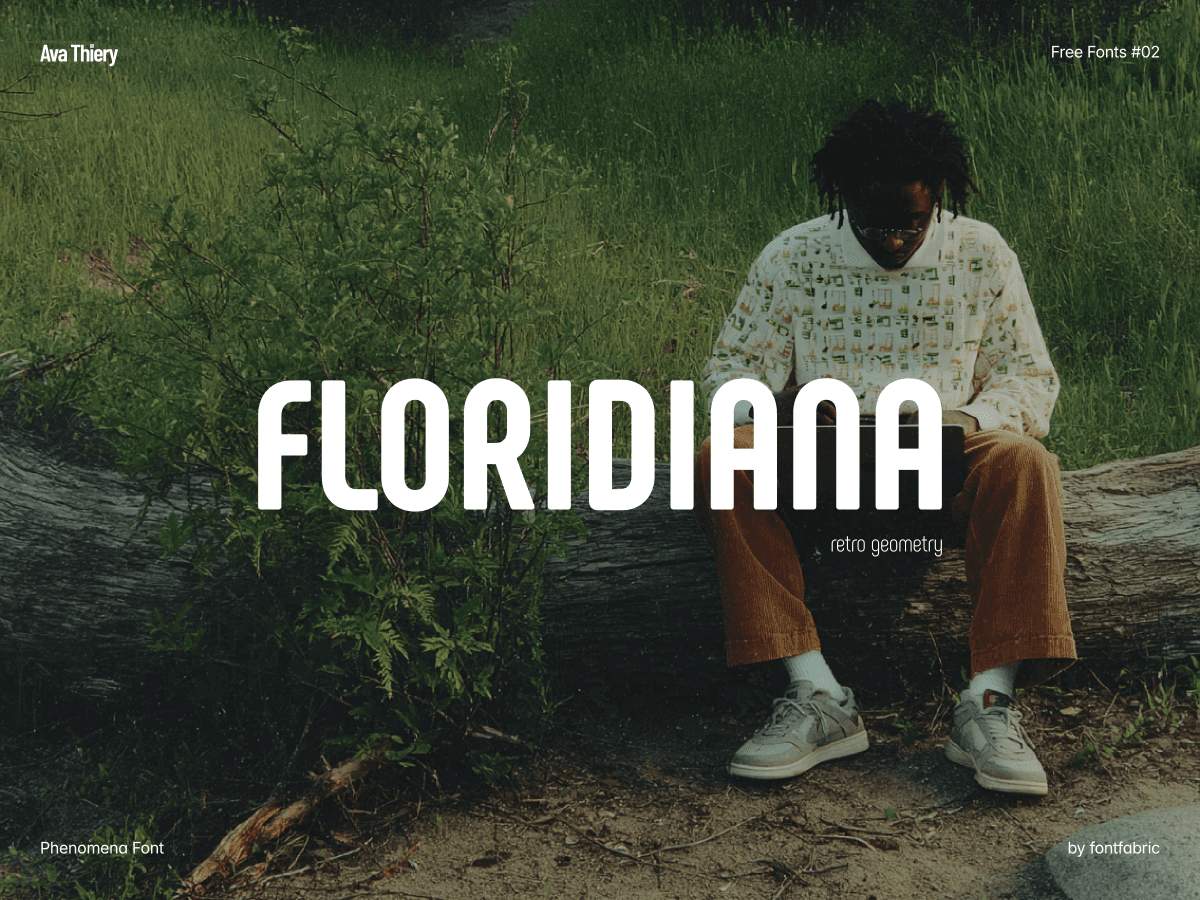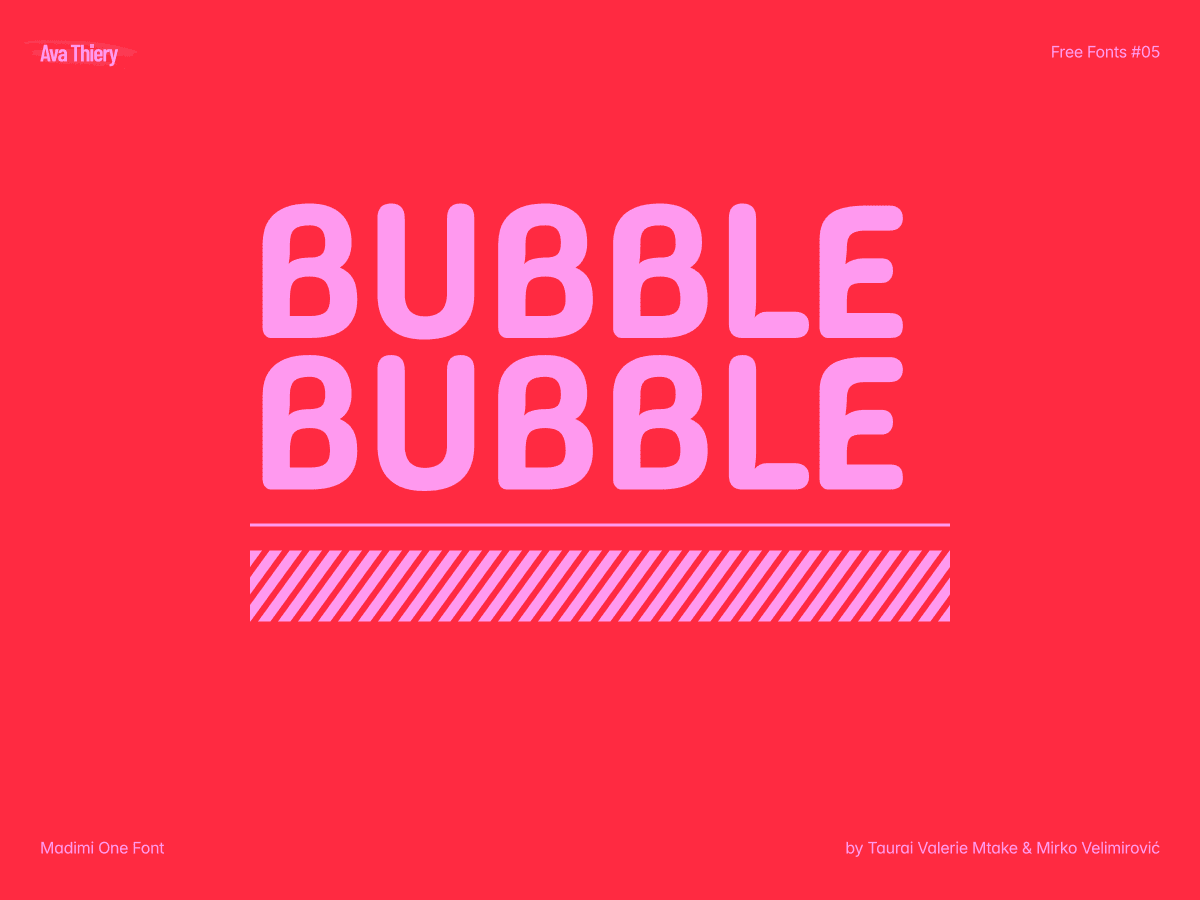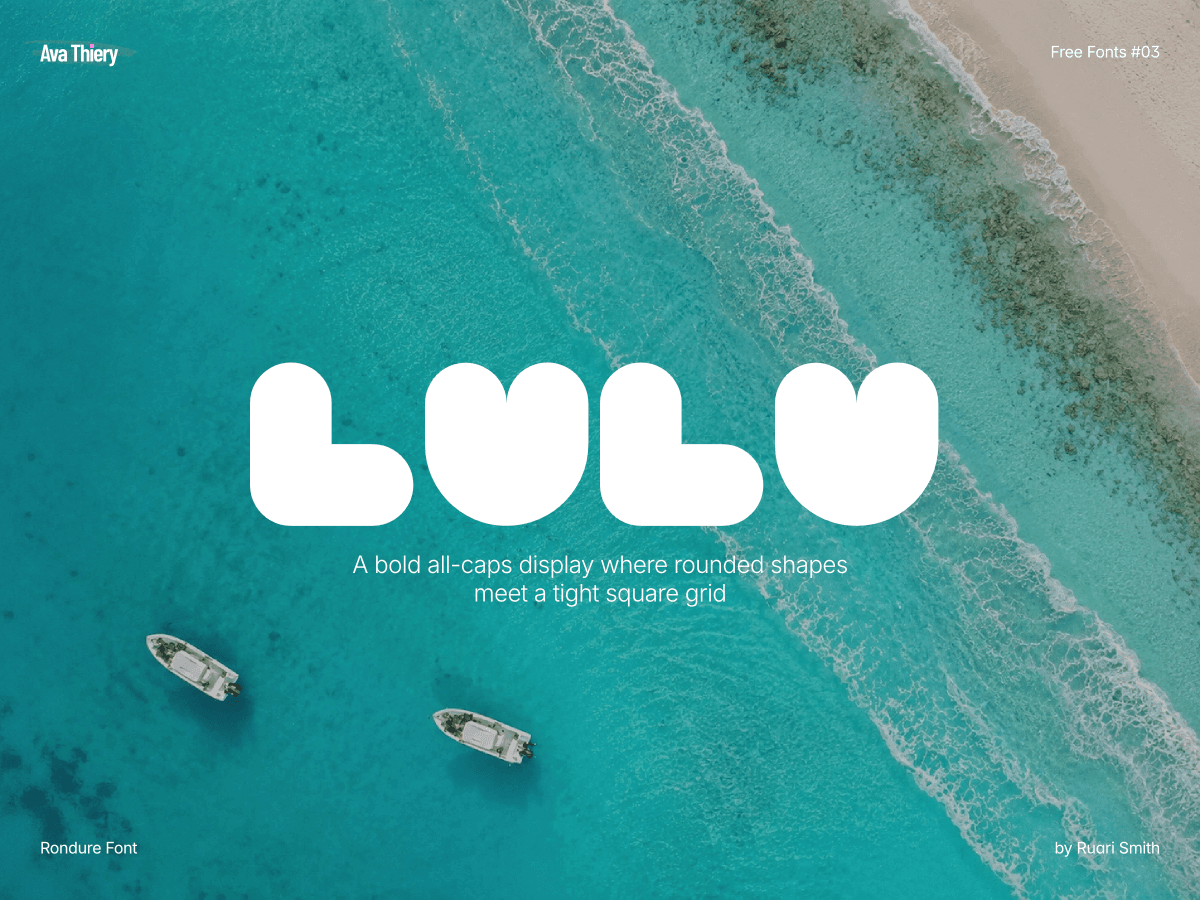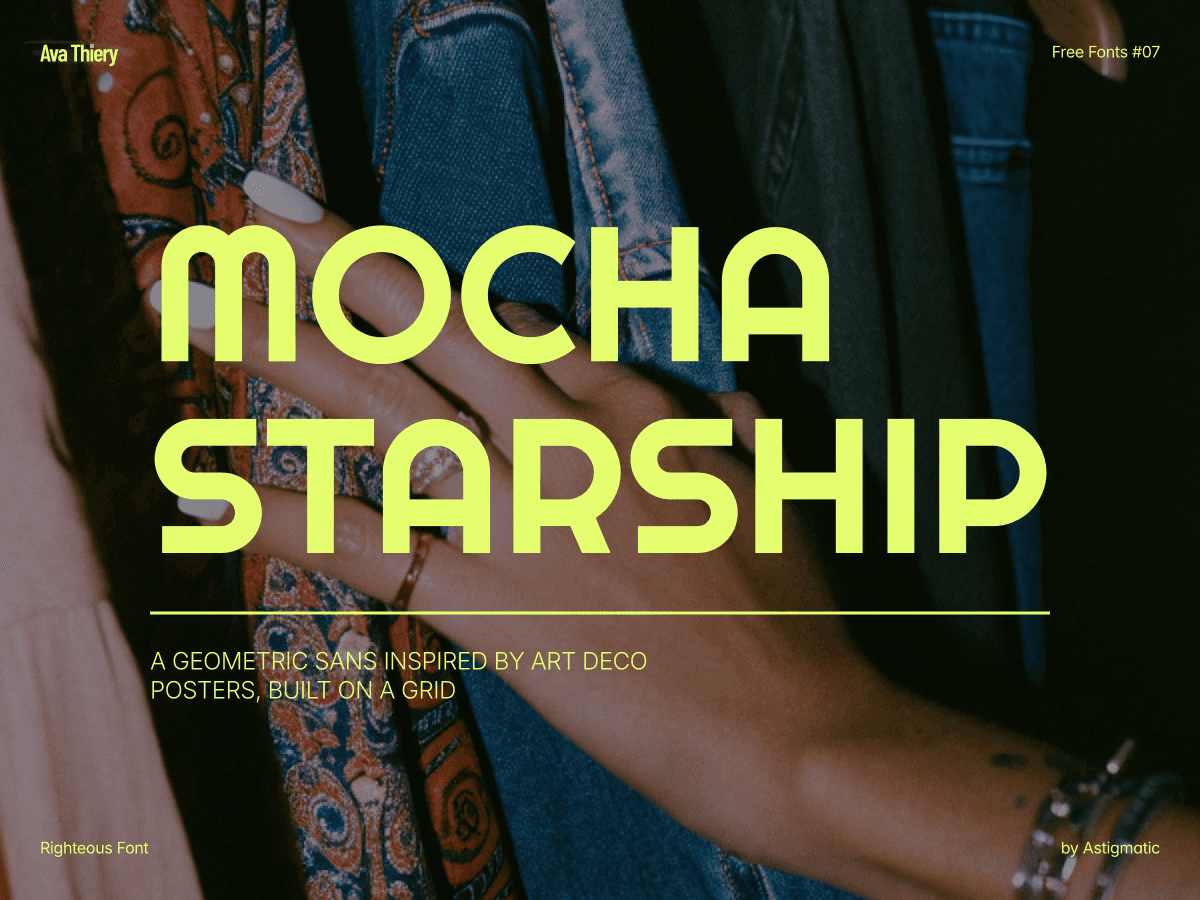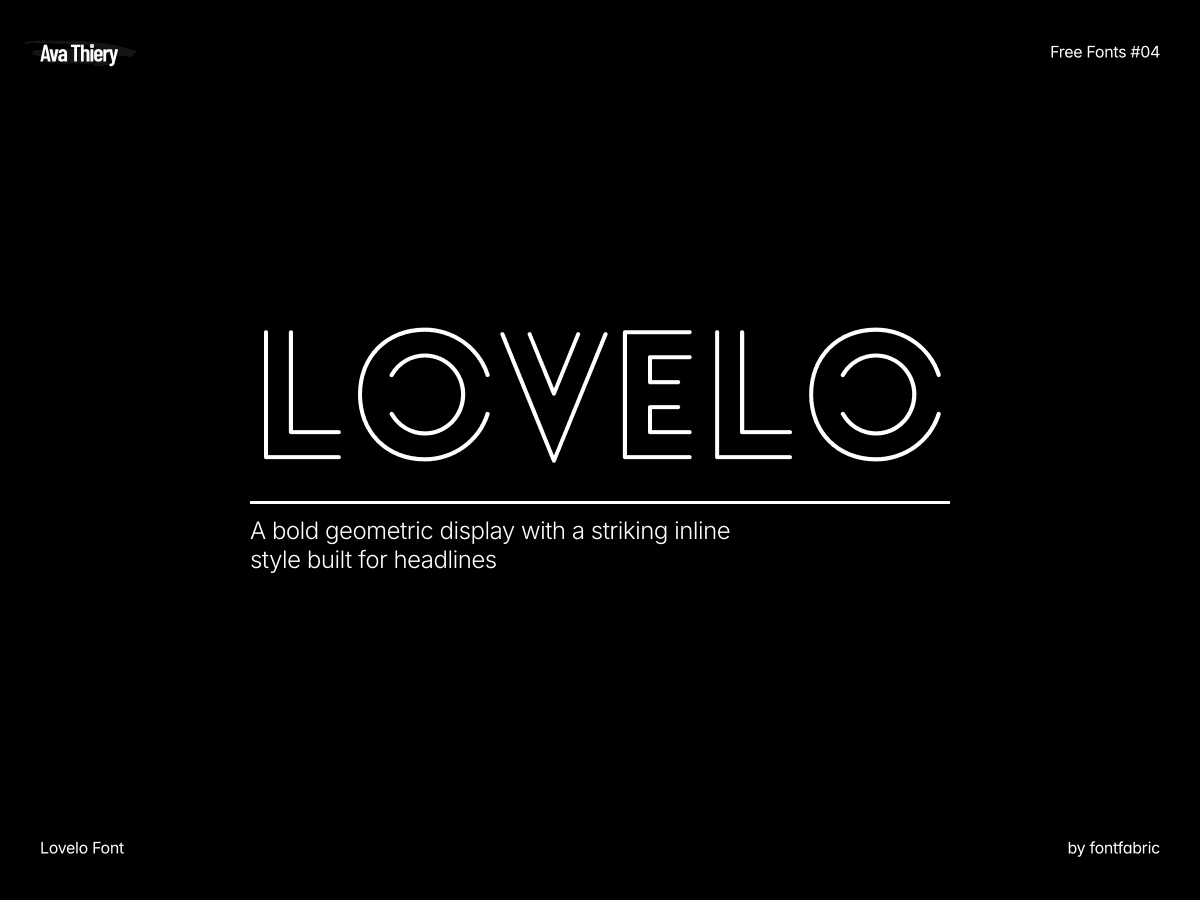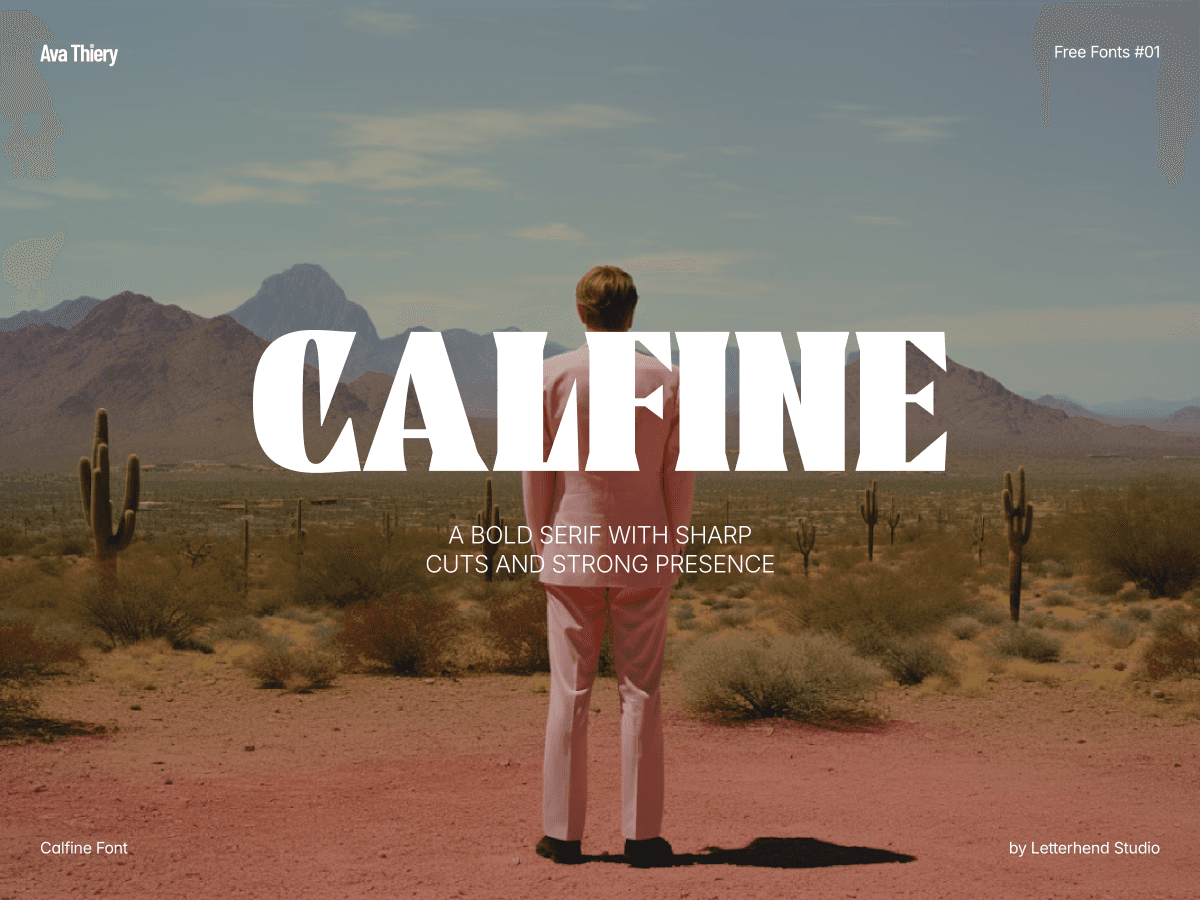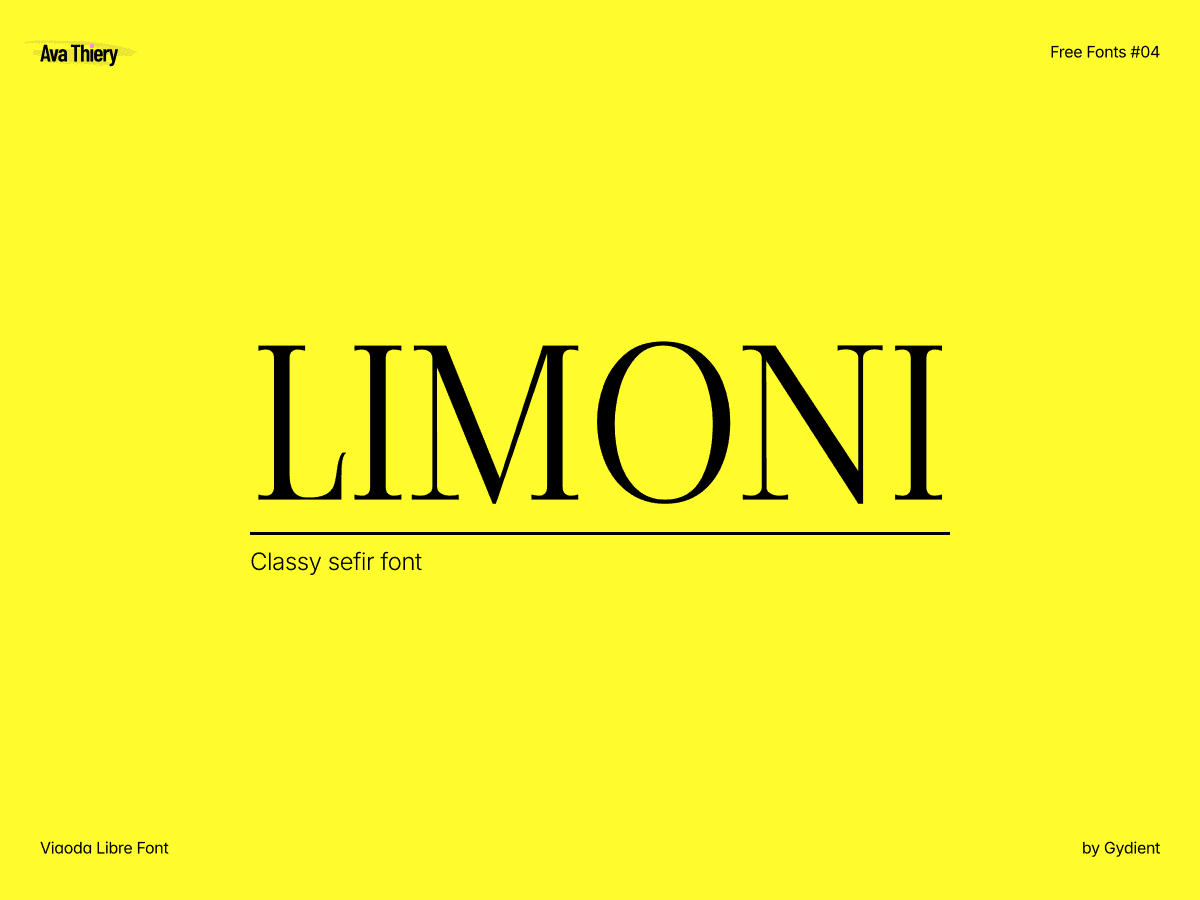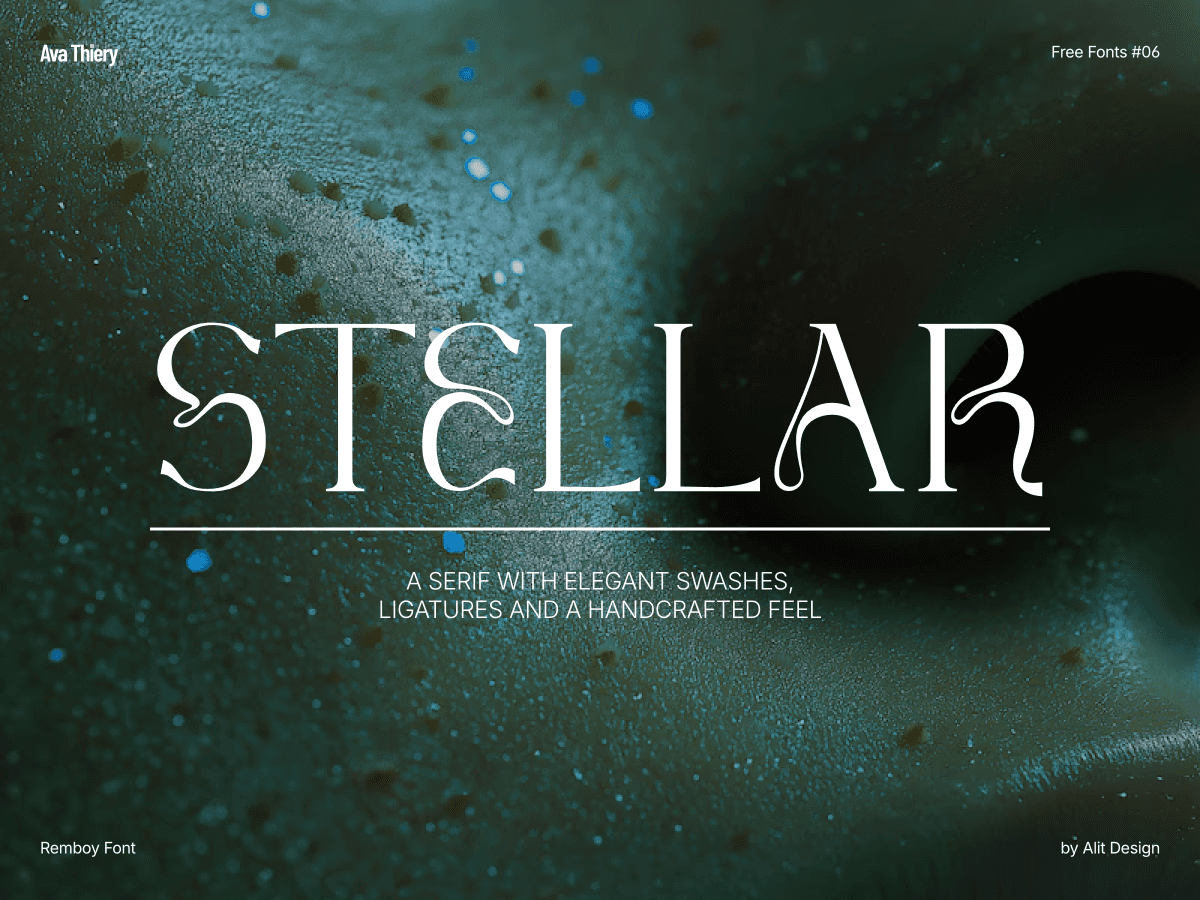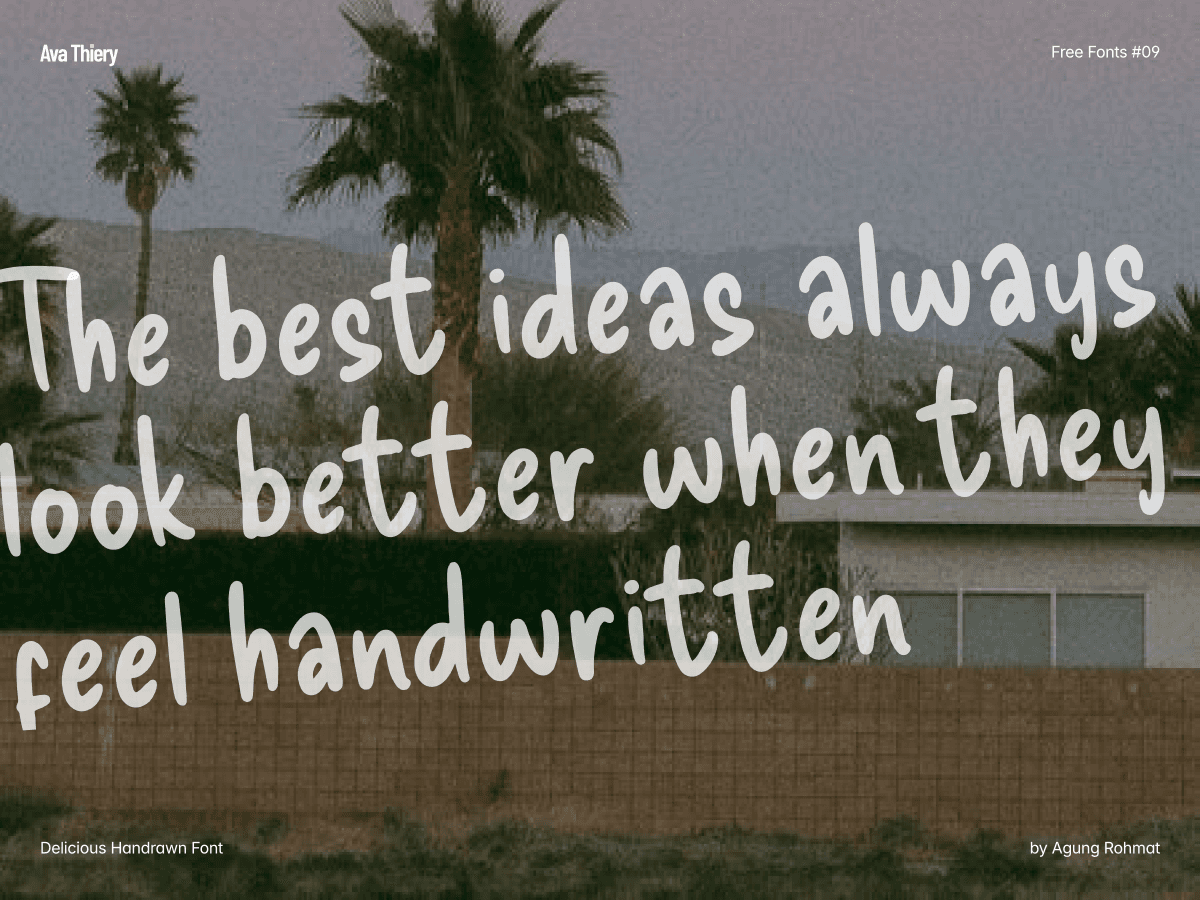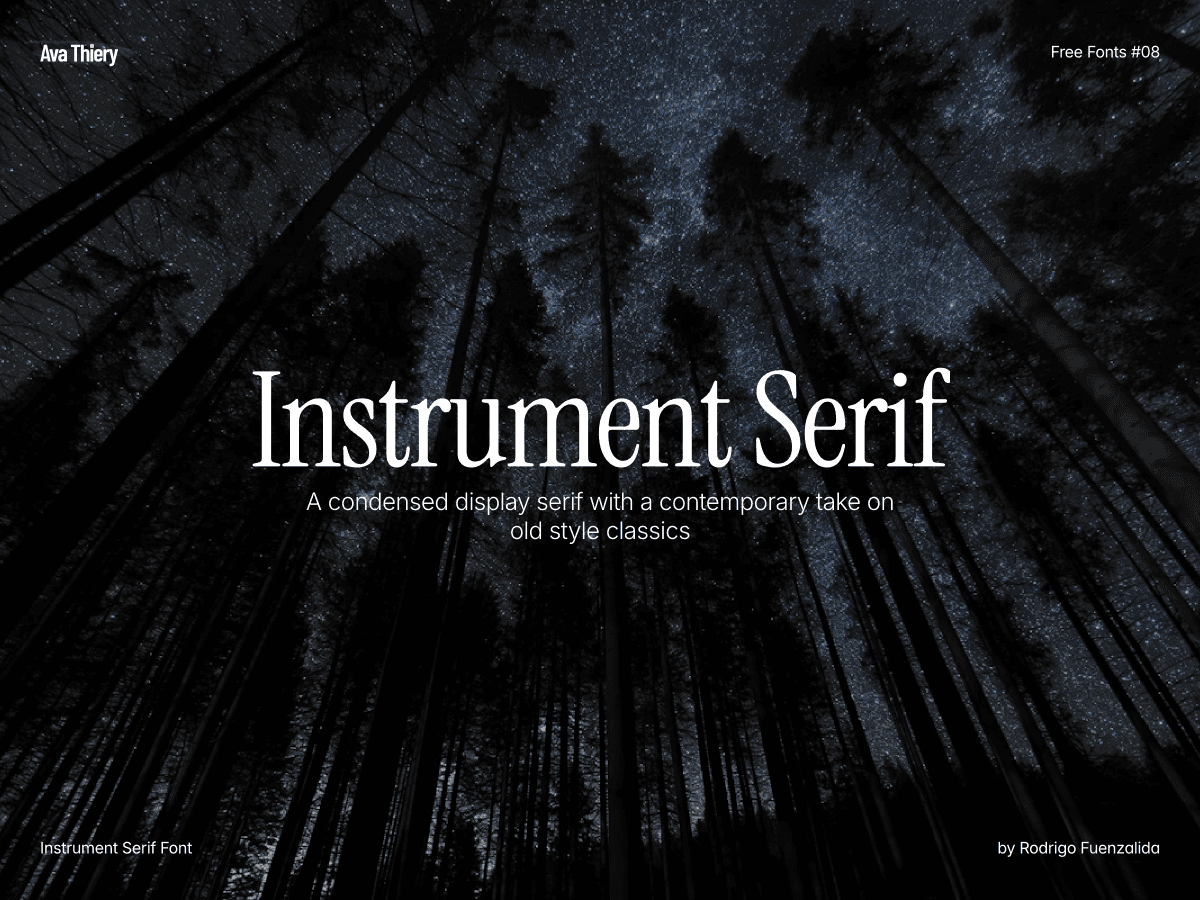
10 Free Fonts Every Framer Designer Should Know About
I put together this list of 10 free fonts that I think are genuinely worth having in your toolkit as a Framer designer.
I've been on a bit of a font exploration lately — going through free typefaces as a creative exercise, and honestly it's been one of the most useful things I've done for my design practice in a while. You start noticing things you'd normally scroll past.
Here's what I found.
1. Calfine
Designer: Hendry Juanda · Letterhend Studio
Best for: Titles, covers, hero sections, logos
2. Phenomena
Designer: Radomir Tinkov & Plamen Motev · Fontfabric
Best for: Headlines, branding, app interfaces, digital ads
3. Rondure
Designer: Ruari Smith
Best for: Branding, logos, posters, signage
4. Viaoda Libre
Designer: Gydient (Tra Giang)
Best for: Titles, editorial headers, covers, posters
5. Madimi One
Designer: Taurai Valerie Mtake & Mirko Velimirović
Best for: Branding, social media, playful UI, children's design
6. Remboy
Designer: Alit Design
Best for: Logos, invitations, editorial, luxury branding, packaging
7. Righteous
Designer: Brian J. Bonislawsky · Astigmatic
Best for: Headlines, posters, branding, web banners, logos
8. Instrument Serif
Designer: Rodrigo Fuenzalida · Creative direction by Jordan Egstad
Best for: Titles, editorial headers, large displays, branding
9. Delicious Handrawn
Designer: Agung Rohmat · alphArtype
Best for: Social media, greeting cards, casual branding, posters
10. Lovelo
Designer: Renzler Design · Fontfabric
Best for: Headlines, logos, branding, posters, social media